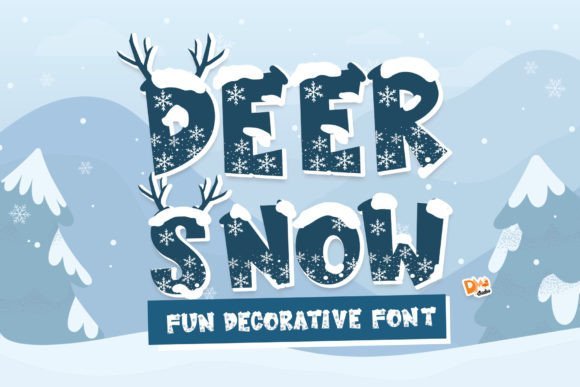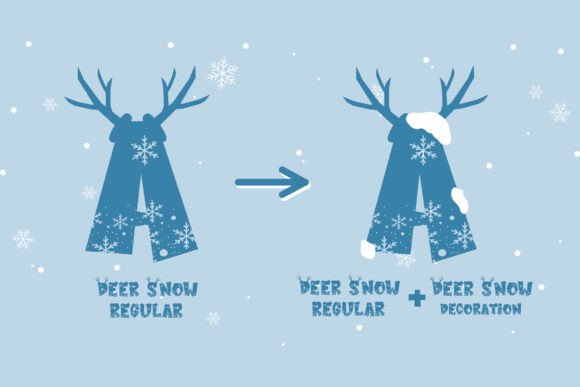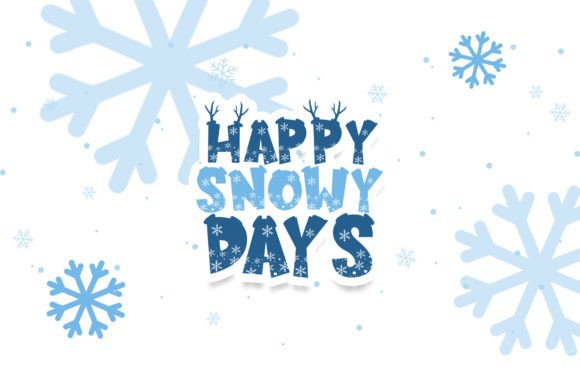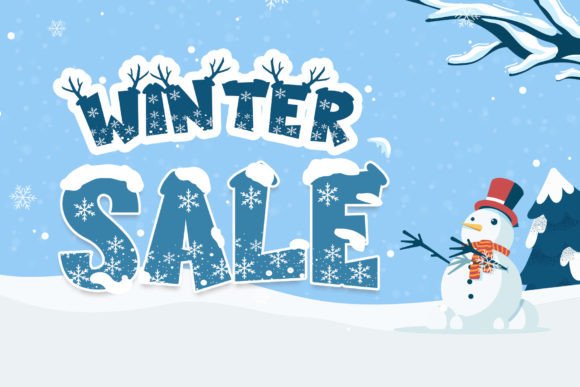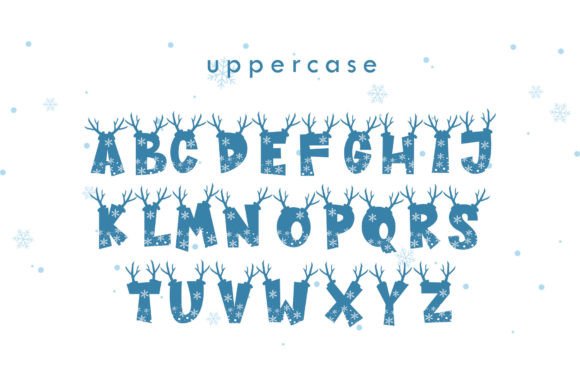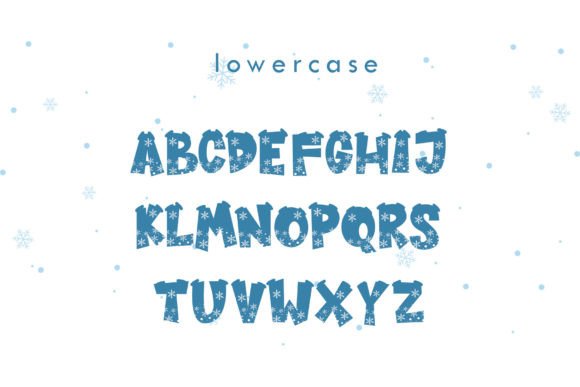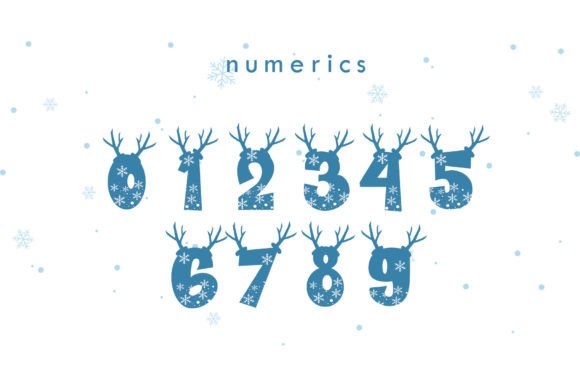
Winter Wonderland Typography: Unwrapping the Magic of Deer Snow Font
As the snowflakes gently fall outside, and the fireplace crackles to life, there’s something magical about the winter season that inspires creativity. For many of us, the festive atmosphere sparks a desire to craft something special – a holiday card, a gift tag, or perhaps a social media post that captures the essence of the season. And that’s where Deer Snow Font comes in – a delightful, snow-kissed typography that’s sure to bring a smile to your face and add a touch of whimsy to your winter-themed projects.
This adorable font is perfect for designers looking to infuse their creations with a sense of fun and playfulness. With its endearing style and wintry charm, Deer Snow Font is an invaluable asset for any designer seeking to create engaging, seasonal content. Whether you’re a graphic designer, a social media influencer, or simply a crafty enthusiast, this font is sure to be a valuable addition to your creative toolkit.
- Unique Characteristics: Deer Snow Font features intricate snowflake designs and deer silhouettes, making it perfect for winter-themed designs, packaging, and branding.
- Character Set: The font includes a wide range of characters, including uppercase and lowercase letters, numbers, punctuation, and special characters.
Deer Snow Font Review
As a designer, I was excited to dive into the Deer Snow Font. Overall, it’s a unique and interesting typeface that’s perfect for adding a touch of whimsy to your designs.
- The Deer Snow Font has a charming, hand-drawn feel that’s sure to capture attention.
- The font is highly customizable, allowing you to adjust everything from the size and color to the texture and style.
- The Deer Snow Font is perfect for creating a festive or wintery atmosphere, making it ideal for holiday-themed designs or winter sports branding.
- The Deer Snow Font may be a bit too ornate for some designs, potentially overwhelming the viewer.
- The font’s complexity can make it difficult to read in certain contexts, particularly at smaller sizes.
- While the font is highly customizable, some users may find it challenging to achieve a cohesive look due to the many options available.
Overall, the Deer Snow Font is a fun and creative typeface that’s perfect for adding a touch of personality to your designs. While it may have some limitations, its unique charm and high level of customizability make it a great choice for designers looking to add some visual interest to their work.
For best results, use Deer Snow Font in conjunction with winter-themed graphics and colors.
Experiment with different font sizes and styles to create a visually appealing effect.
Consider pairing Deer Snow Font with other festive fonts, such as Snowflake or Holly Berry, for a cohesive look.
Deer Snow Font is ideal for:
Winter-themed invitations and greeting cards.
Holiday marketing materials, such as flyers and brochures.
Personalized winter-themed gift tags and labels.
What is the recommended font size for optimal legibility with Deer Snow Font?
The recommended font size for optimal legibility with Deer Snow Font is between 12 and 24 points, depending on the intended use and viewing distance. For digital applications, consider using font sizes between 14 and 18 points for clear readability.